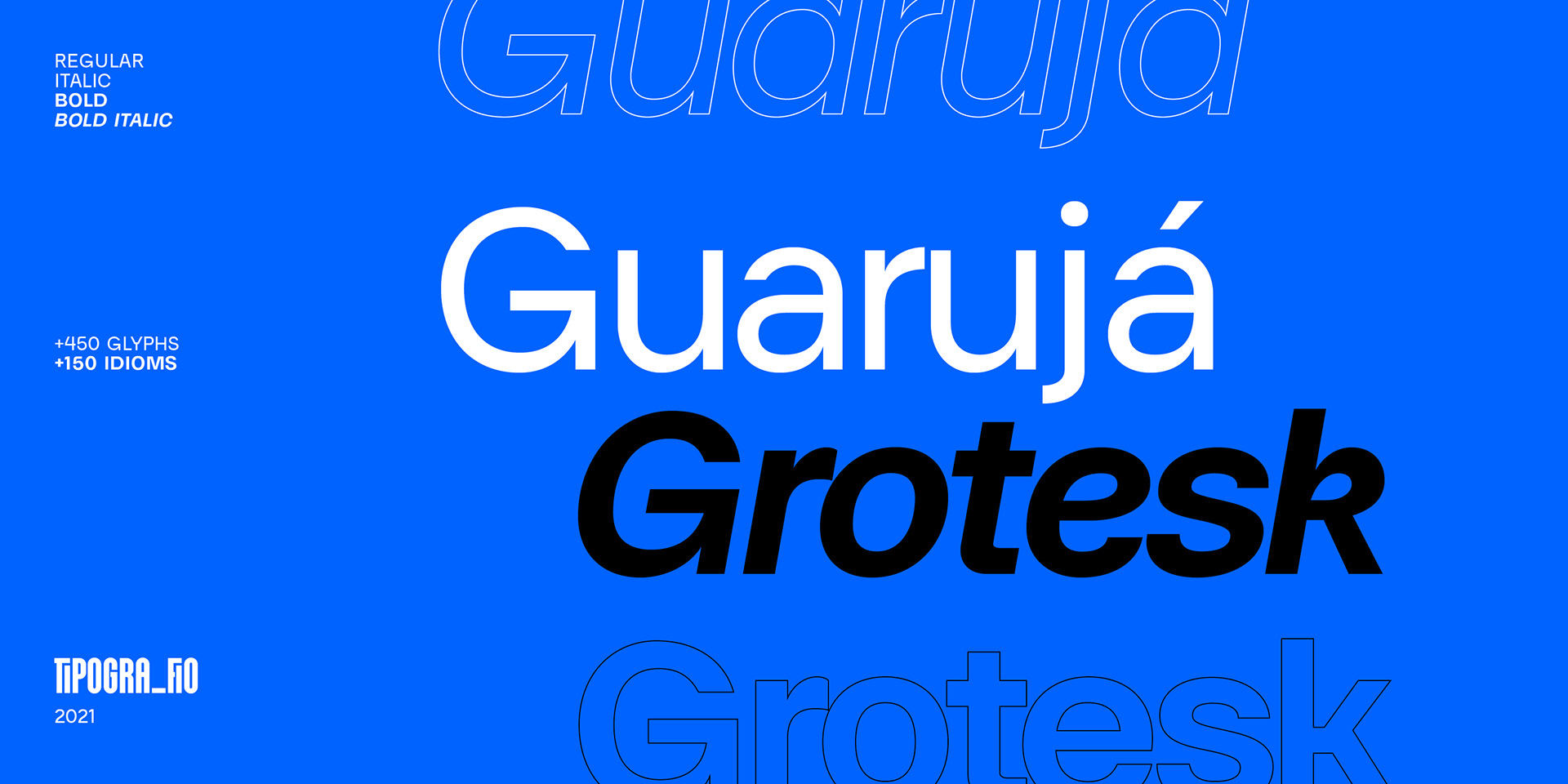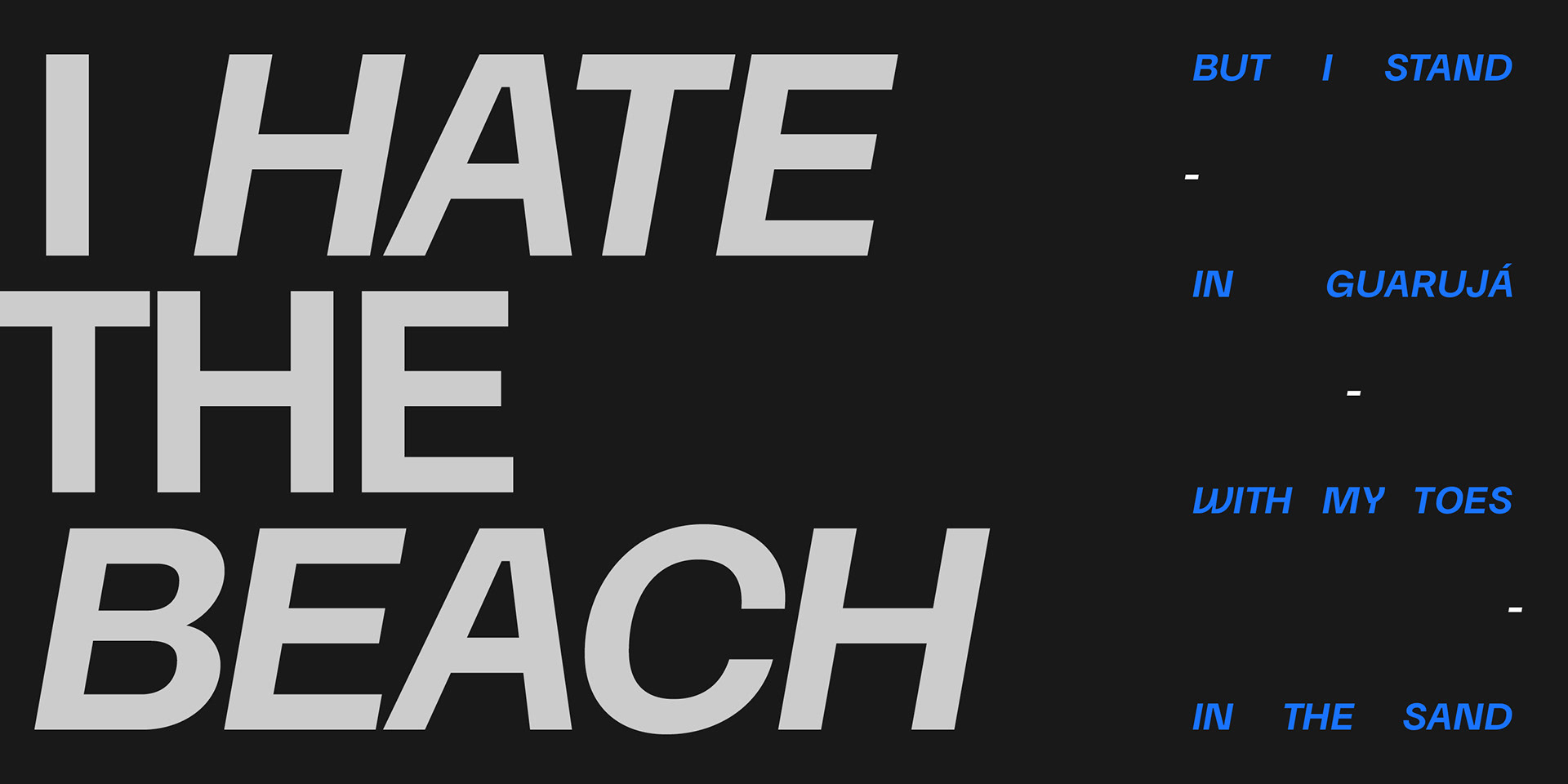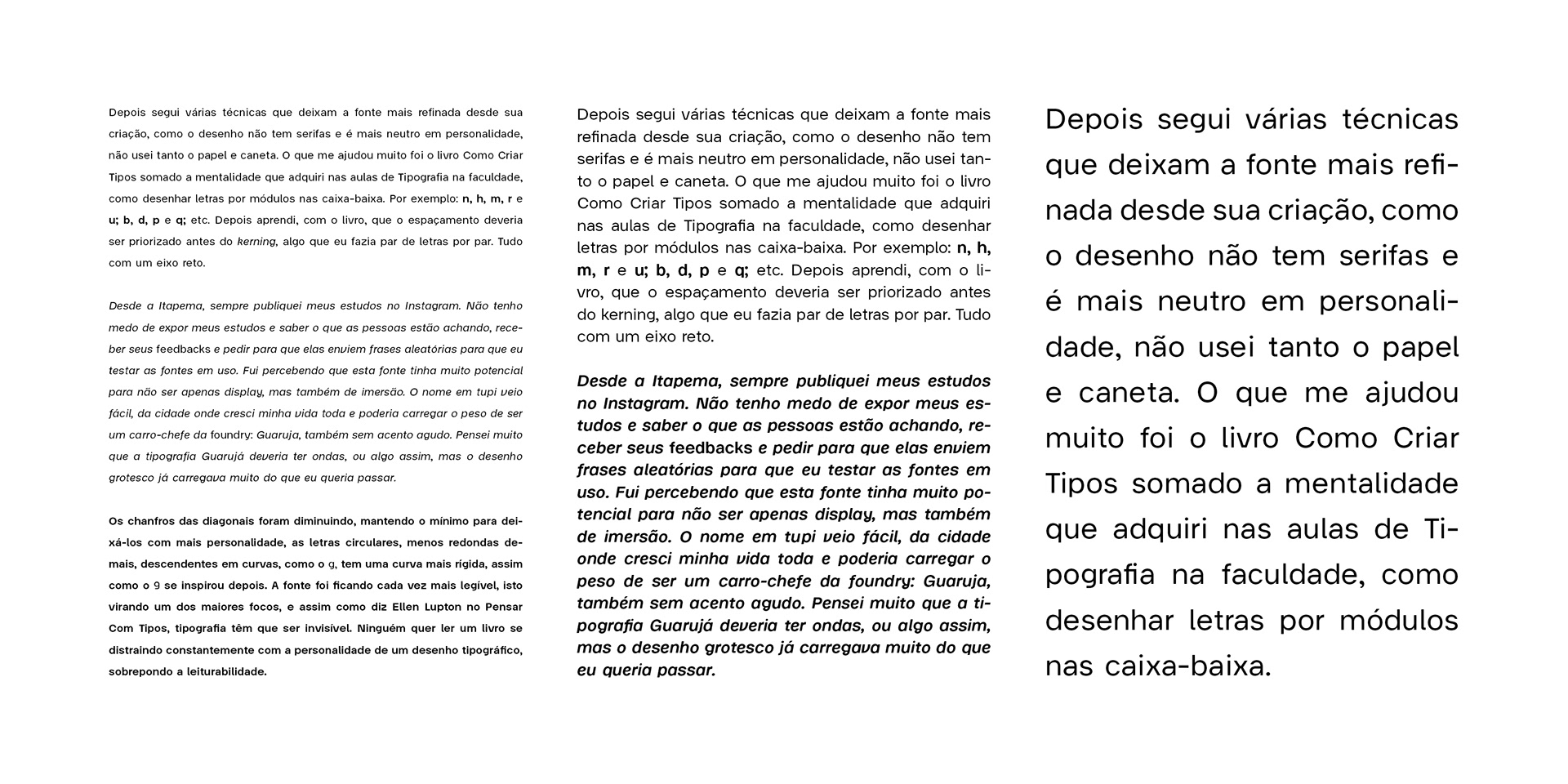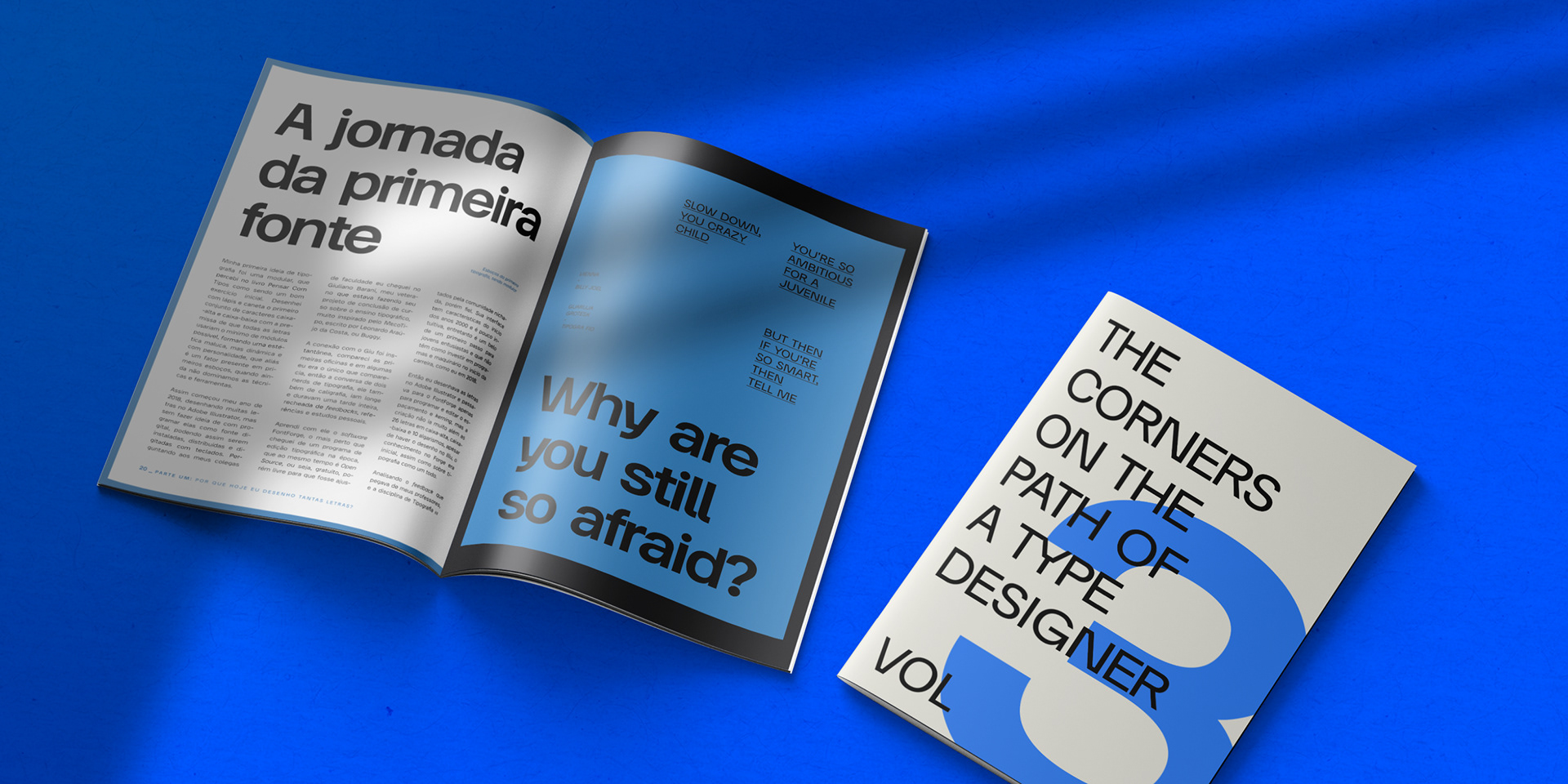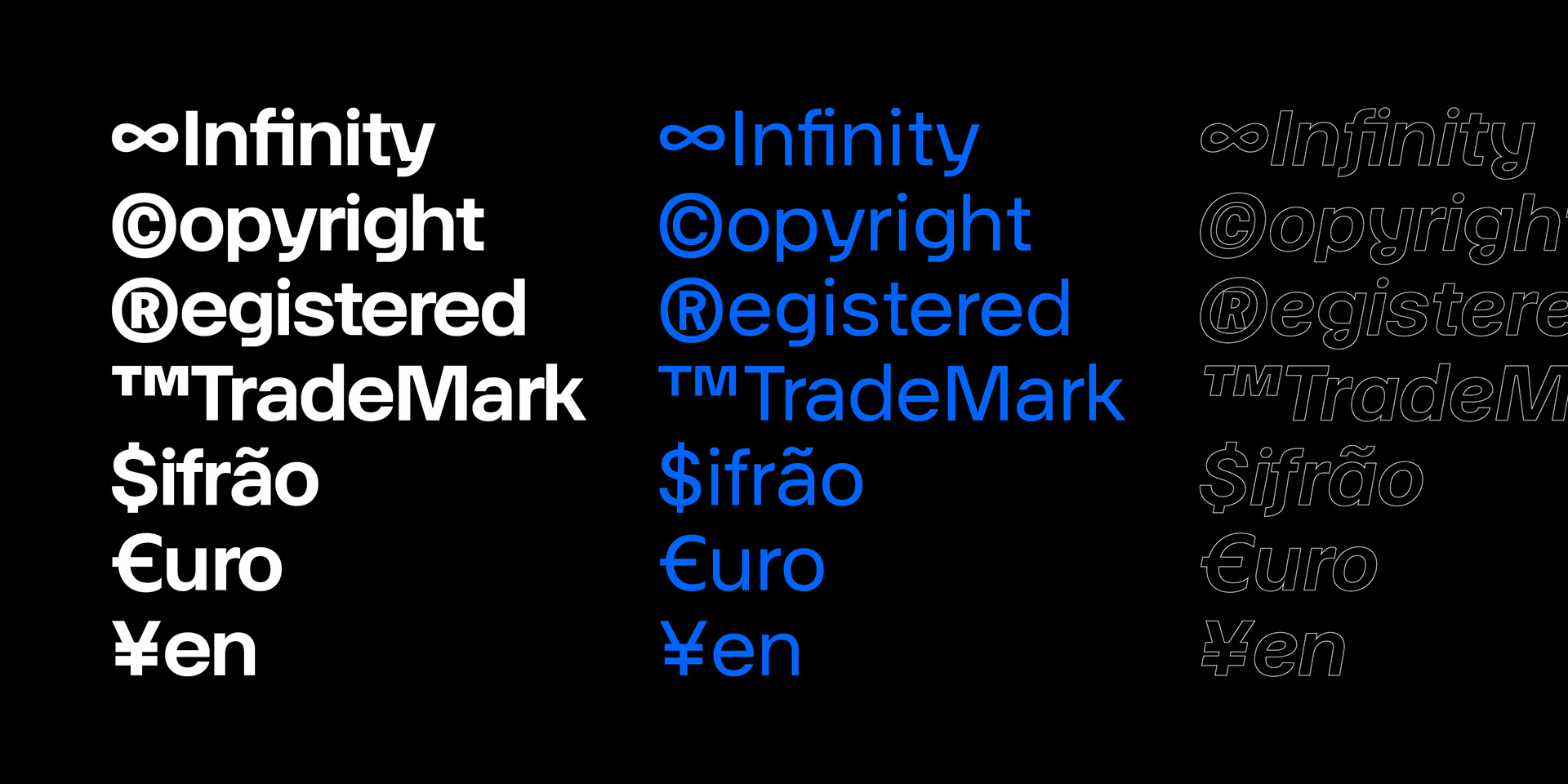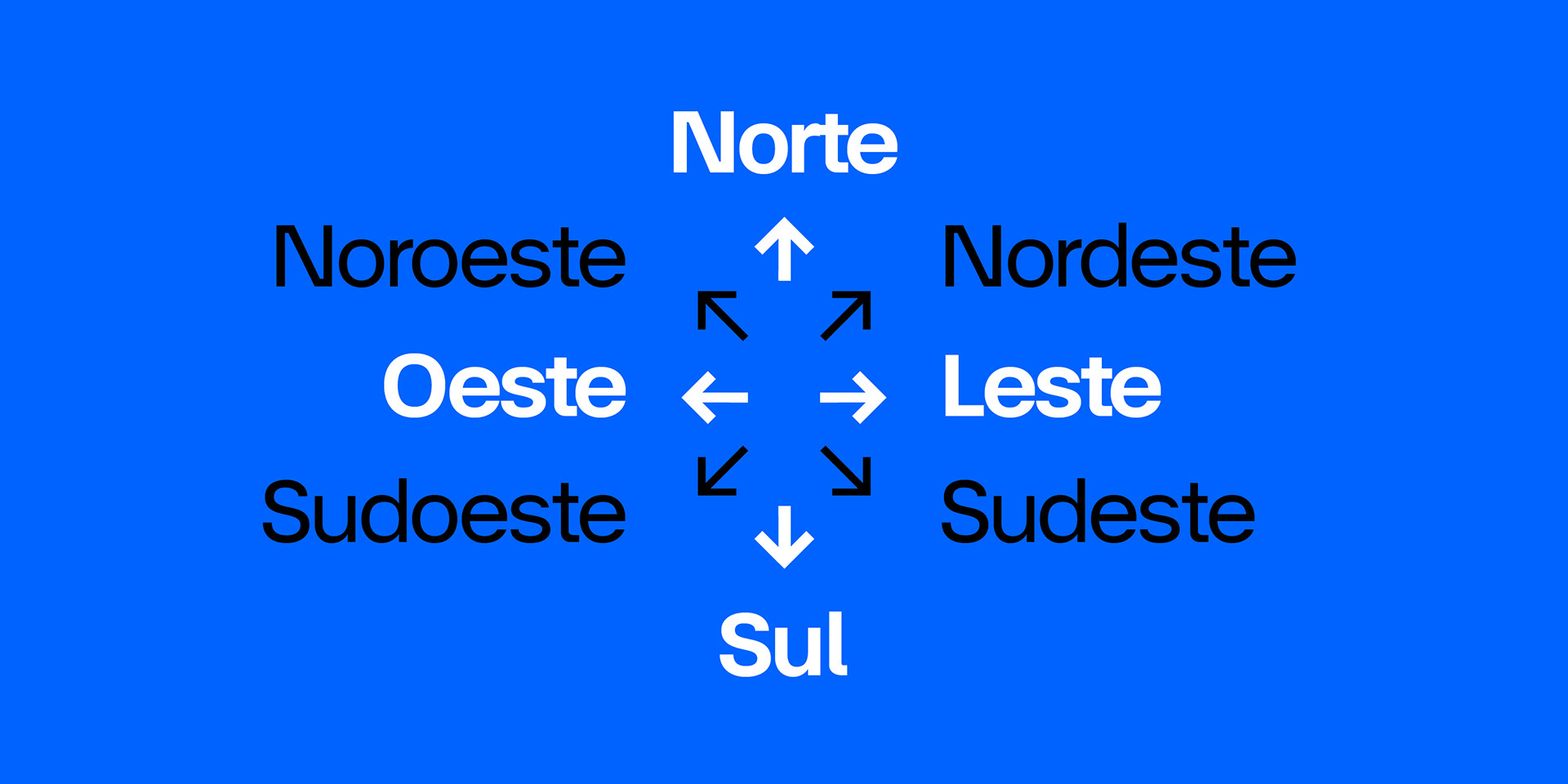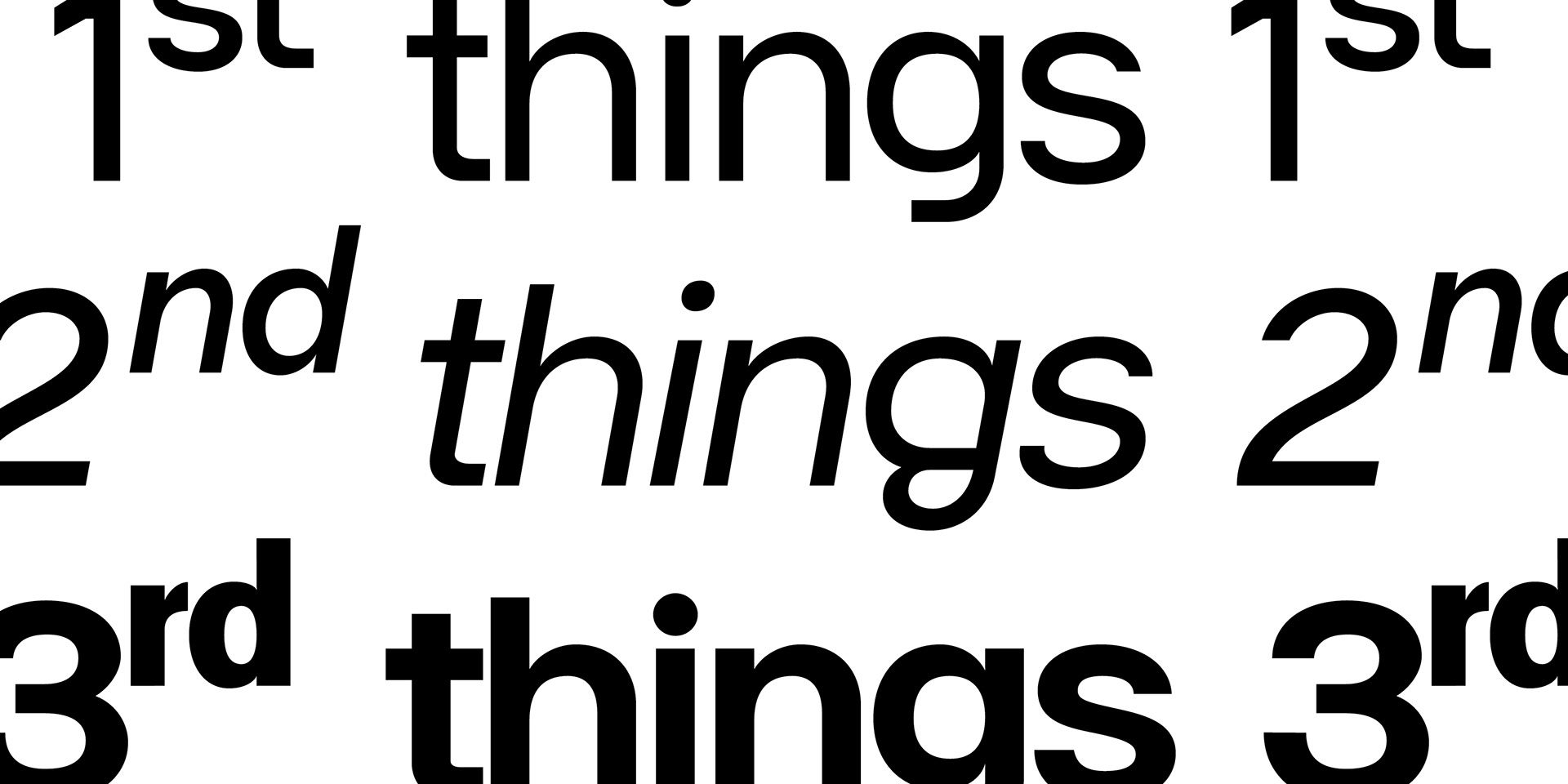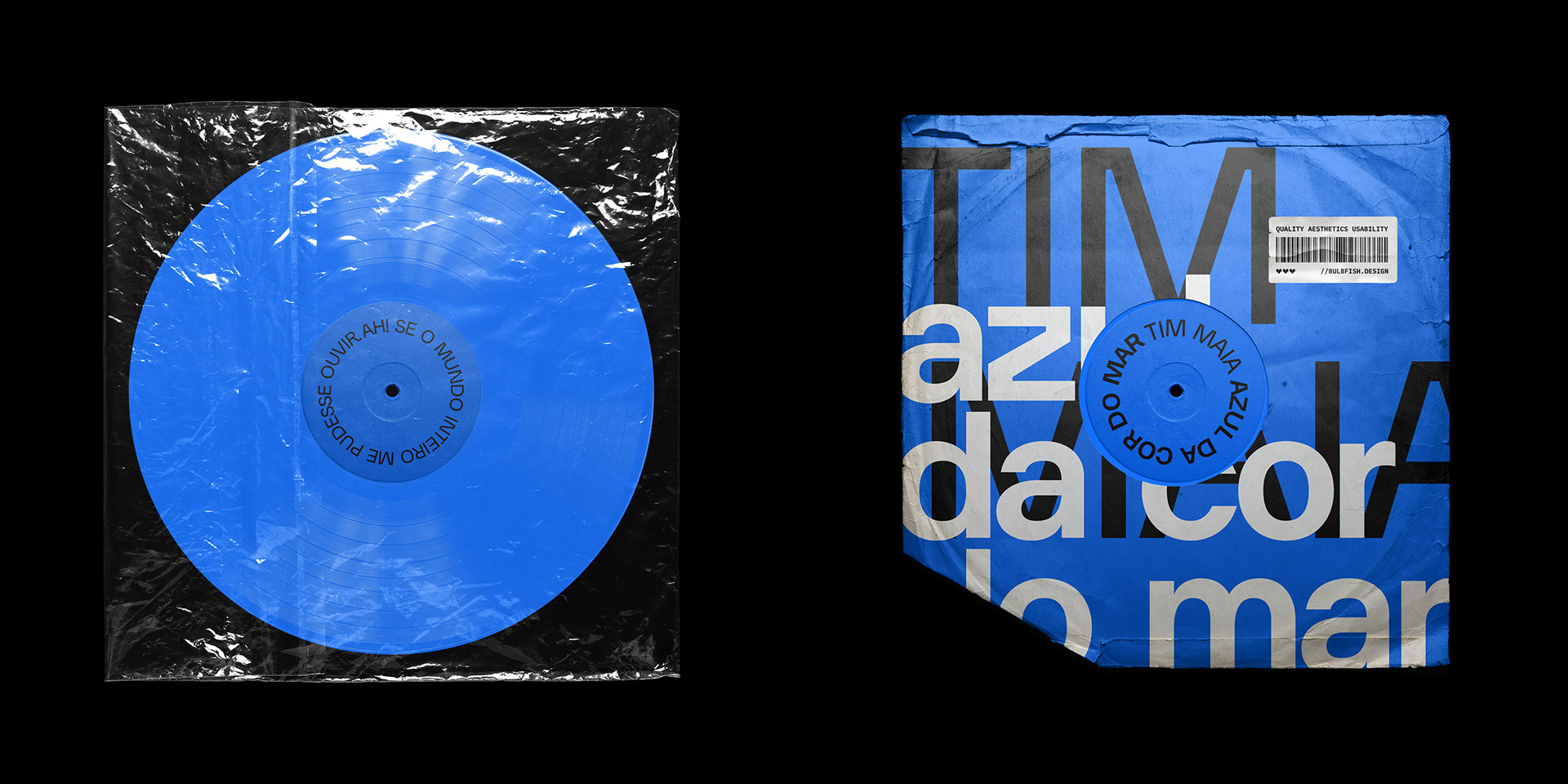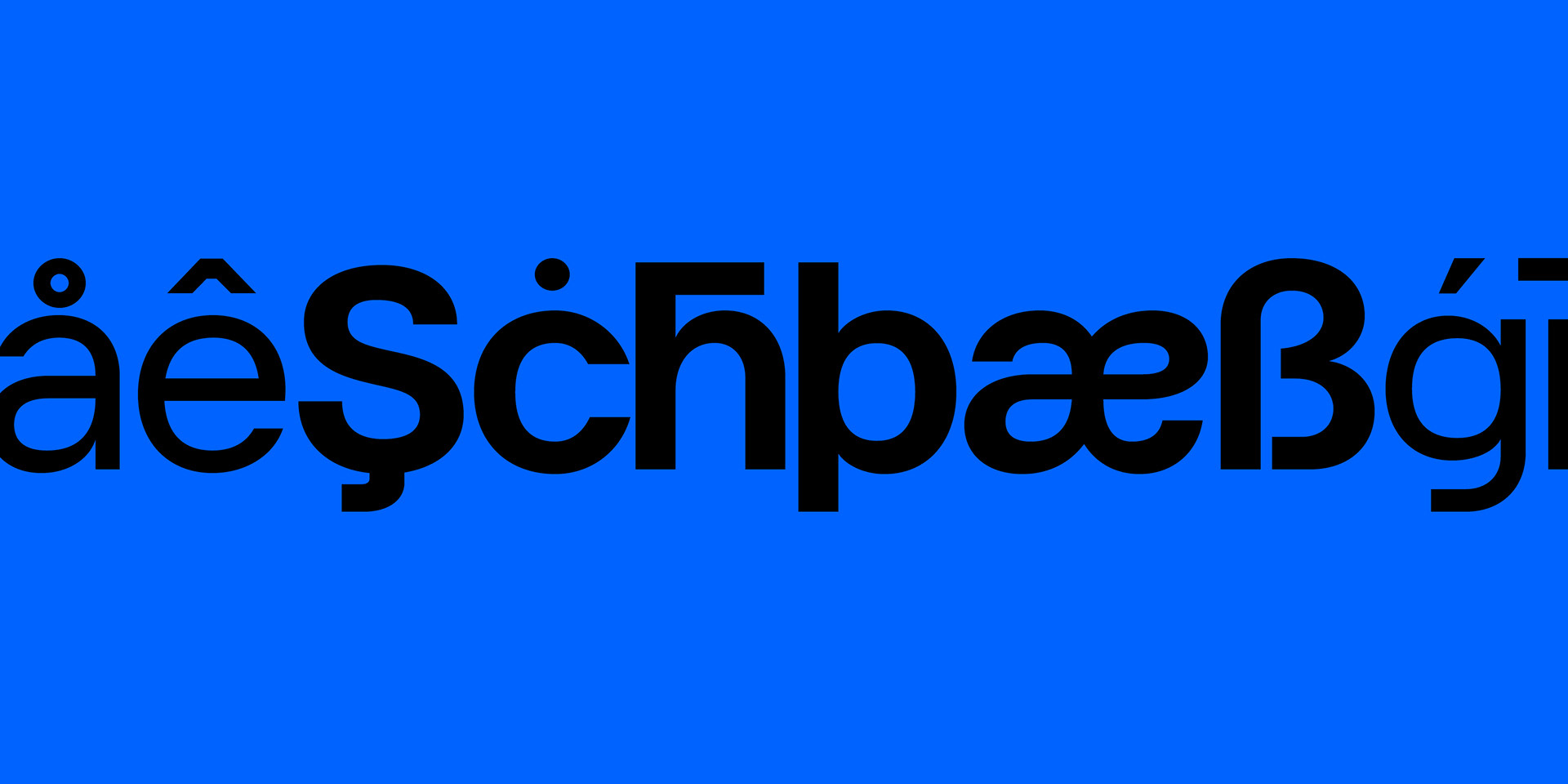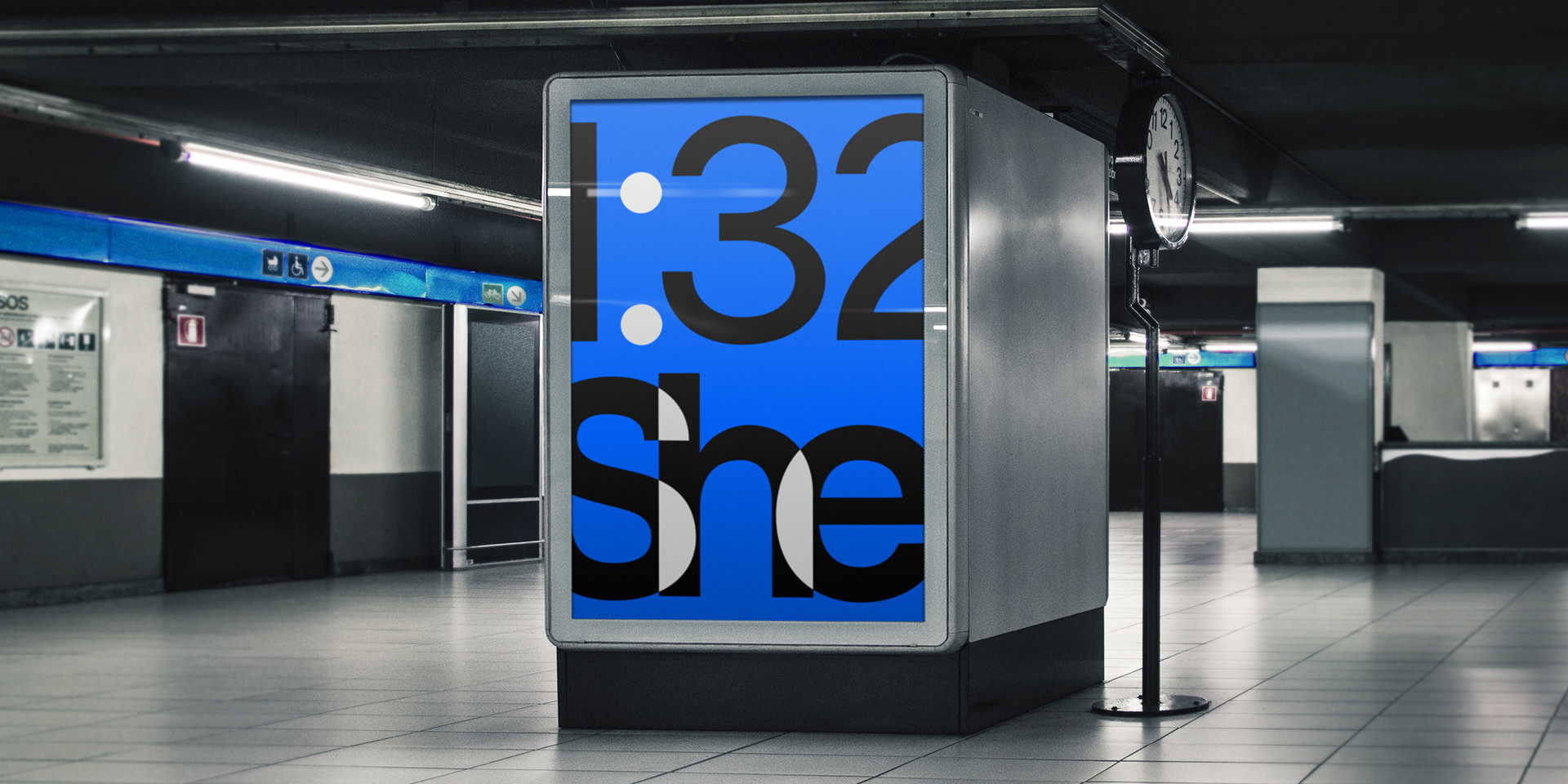
PT: Guaruja Grotesk é a família tipográfico para textos e títulos da Tipogra Fio. Obtenha a versão Beta agora antes que chegue no MyFonts. EN: Guaruja Grotesk is the typography for body copy and headlines by Tipogra Fio. With the the weights you have lots of possibilities to play with. Get the Beta version now, before it goes to MyFonts.